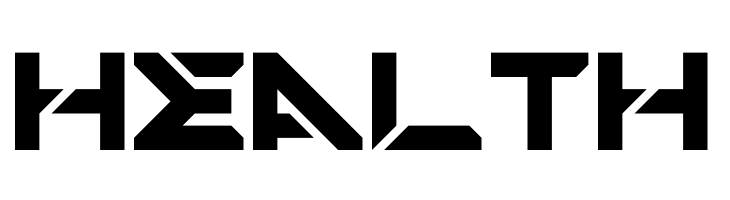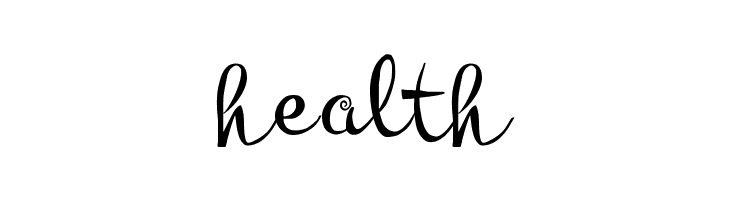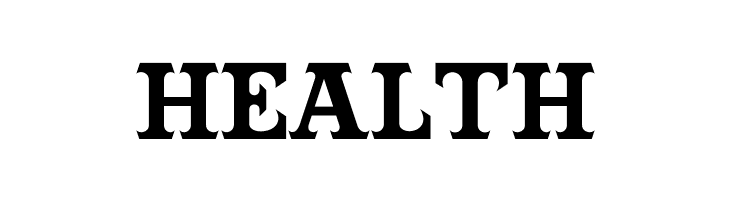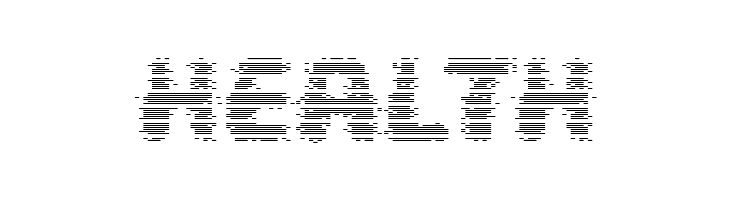
A futuristic, angular font with bold, geometric shapes and a mechanical feel.
A playful and whimsical font with curly, decorative elements.
A playful, hand-drawn font with irregular strokes and a casual, informal style.
A bold, cursive script font with high contrast and flowing, connected characters.
A bold serif font with high contrast and strong, classic design elements.
A modern, geometric font with a unique two-line style.
A futuristic, digital-style font with horizontal line effects.